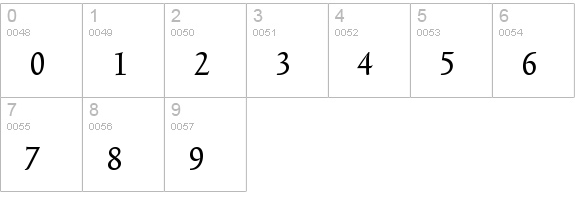
TriniteNo1-RomanCondensedTab is a modern and sophisticated font that exudes elegance and professionalism. Its sleek and streamlined design makes it perfect for a wide range of applications, from advertising and branding to editorial design and web content. This font offers a unique blend of classic and contemporary elements, with its condensed letterforms adding a touch of refinement and versatility. Whether you are designing a logo for a high-end fashion brand or creating a sleek and professional website, TriniteNo1-RomanCondensedTab will elevate your design and make a lasting impression. One of the best things about TriniteNo1-RomanCondensedTab is that it is free. Yes, you read that right - this exceptional font is freely available to download at FontsMarket.com. This means that you can enhance your projects with a stunning and premium-quality font without having to spend a dime. Don't let the word "free" fool you, though. TriniteNo1-RomanCondensedTab is a font that rivals even the most expensive ones on the market. Its flawless curves, sharp edges, and balanced proportions make it a true gem for designers seeking a font that combines style and functionality. So, if you're looking for a font that will make your designs stand out from the crowd, TriniteNo1-RomanCondensedTab is the perfect choice. Go ahead and download it for free at FontsMarket.com, and start creating stunning designs that leave a lasting impression.